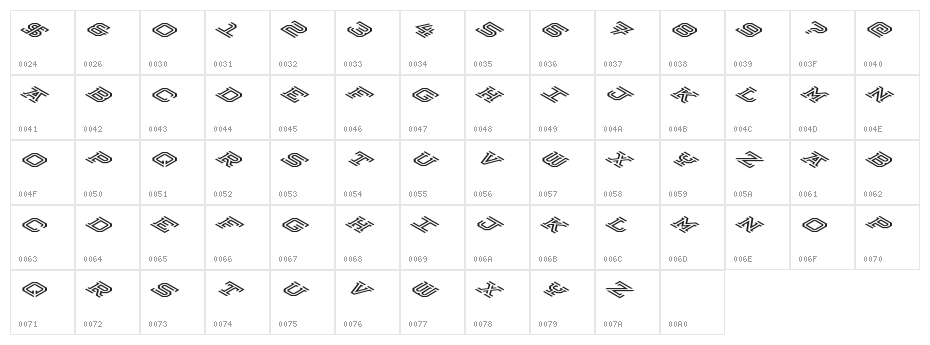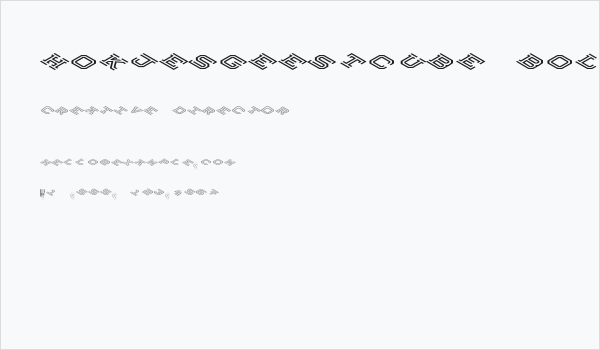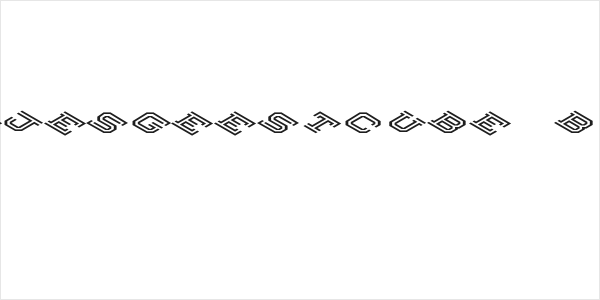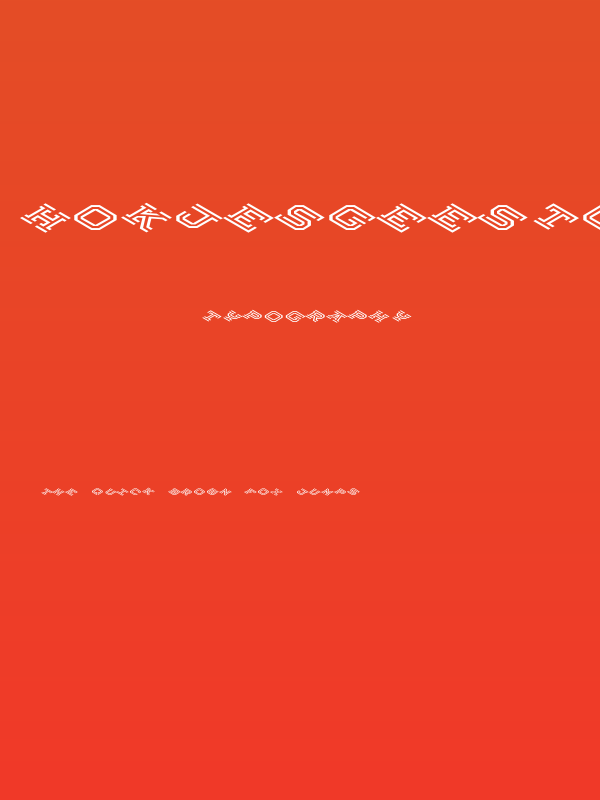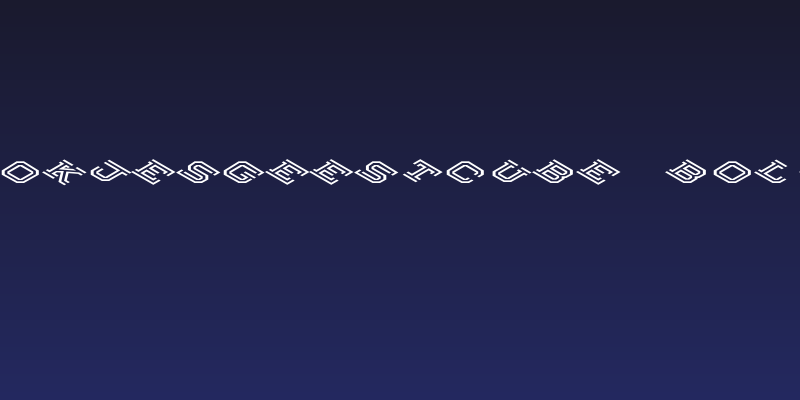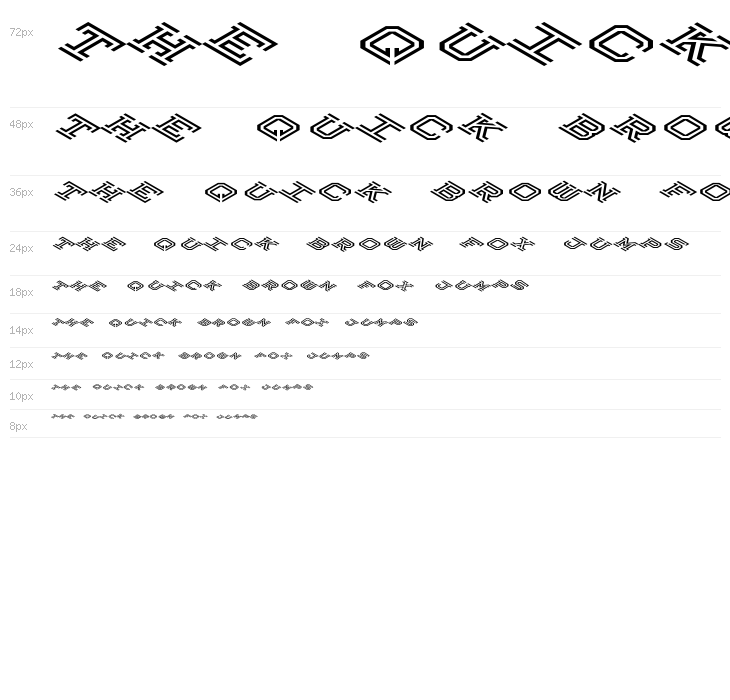
Hokjesgeestcube Bold Font
Hokjesgeestcube Bold Description
This font features a bold, geometric design with a three-dimensional cube-like effect. Each character is constructed with sharp angles and lines that create a sense of depth and perspective. The style is highly decorative, making it stand out with its unique, modern aesthetic. The uppercase and lowercase letters maintain a consistent design, while the numbers and special characters follow the same geometric theme. This font is ideal for projects that require a striking and unconventional look.
| Proposed Projects | Ideal for branding, posters, video game graphics, and any creative project needing a bold statement. |